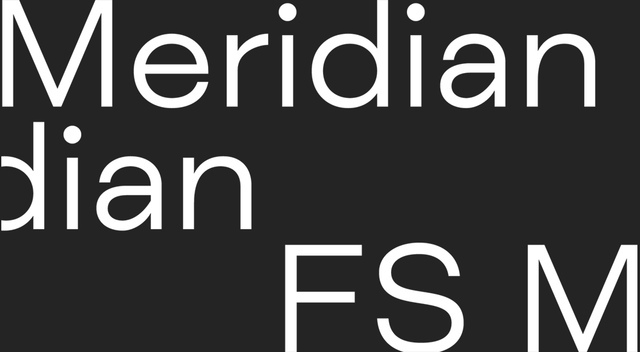
FS Meridian Font
FS Meridian Font is perfect for navigation system interfaces, geographical mapping projects, global positioning applications, international shipping companies, aviation navigation displays, marine cartography materials, longitude and latitude documentation, geographic survey presentations, world travel branding, global logistics communications, international business materials, and directional projects that require precise, navigation-inspired typography with geographical authority and global sophistication.
What makes FS Meridian Font so exciting is its precise navigational clarity and global sophistication that embodies the essential accuracy and international scope required for geographical communication and navigation systems. This typeface features clean, systematic letterforms with geographical characteristics and navigational precision that ensure optimal readability across mapping applications, GPS interfaces, and international documentation. The font's meridian character and global appeal make it perfect for navigation companies and international organizations that need typography as accurate and reliable as their geographical services and global positioning systems.
FS Meridian Font typically comes in multiple weights and styles including Light, Regular, Medium, Bold, and Black variations. Many versions also include navigational symbols, geographical ornaments, and directional decorative elements that enhance the font's mapping functionality and provide designers with comprehensive tools for creating precise, navigation-focused typography compositions that meet international cartographic standards.
Whether you're designing mapping applications, navigation interfaces, or international logistics materials, FS Meridian Font delivers exceptional geographical authenticity and navigational clarity that connects with users who depend on precise positioning and accurate geographical communication. Its systematic, internationally-focused appearance works exceptionally well in both technical mapping applications and contemporary global business contexts, maintaining navigational precision across diverse geographical applications.
The precisely engineered letterforms of FS Meridian Font showcase the ultimate expression of cartographic typography and geographical design principles. Each character has been optimized for maximum legibility in navigation environments while maintaining the systematic consistency that international mapping standards require, ensuring that your geographical communications remain accurate and professionally reliable for global positioning and international navigation applications.